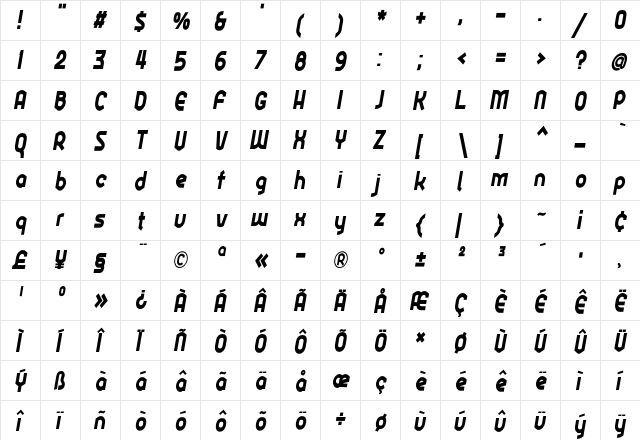
Ekela Heavy Condensed Italic Font Preview
Design Context for Ekela Typeface
Ekela offers clean, dependable letterforms without strong stylistic allegiance, making it a practical choice for designers who need flexibility. Its italic angle brings a sense of urgency and motion to the letterforms. The condensed width makes it efficient for tight spaces without sacrificing legibility.
Pro Tip: Try Ekela for annotation and caption copy alongside an upright companion — the contrast in angle creates a dynamic but ordered typographic system.